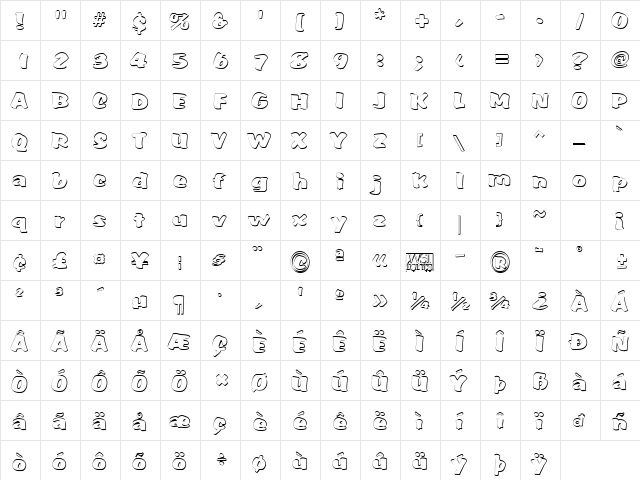
Somora Regular
Design Context for Somora Typeface
Somora is a composed and adaptable typeface that performs quietly and consistently across a wide range of design contexts.